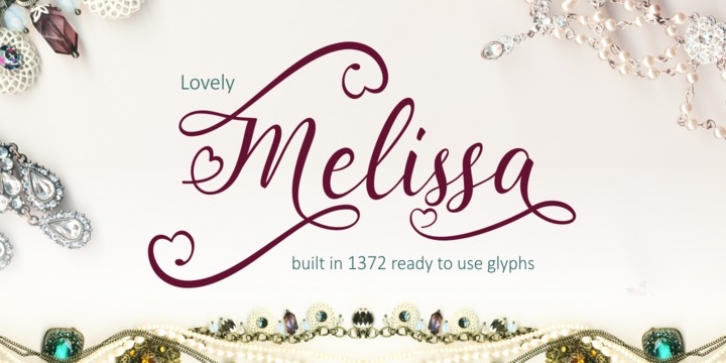
Lovely Melissa is a new variation of handmade script typeface. Complete your collections of script fonts. This typeface has been enriched with additional alternates characters for a total of 1,372 glyphs. Great for wedding invitations, product designs, and more. Go succeed and enjoy it!
Main Features: Titling Alternate Stylistic Set 01-09 Contextual Alternate Ligatures Discretionary ligature Contextual ligature Swash Variant Initial Form Medial Form Terminal Form Capital Space Numerator Proportional Lining Tabulator Oldstyle Superscript Subscript